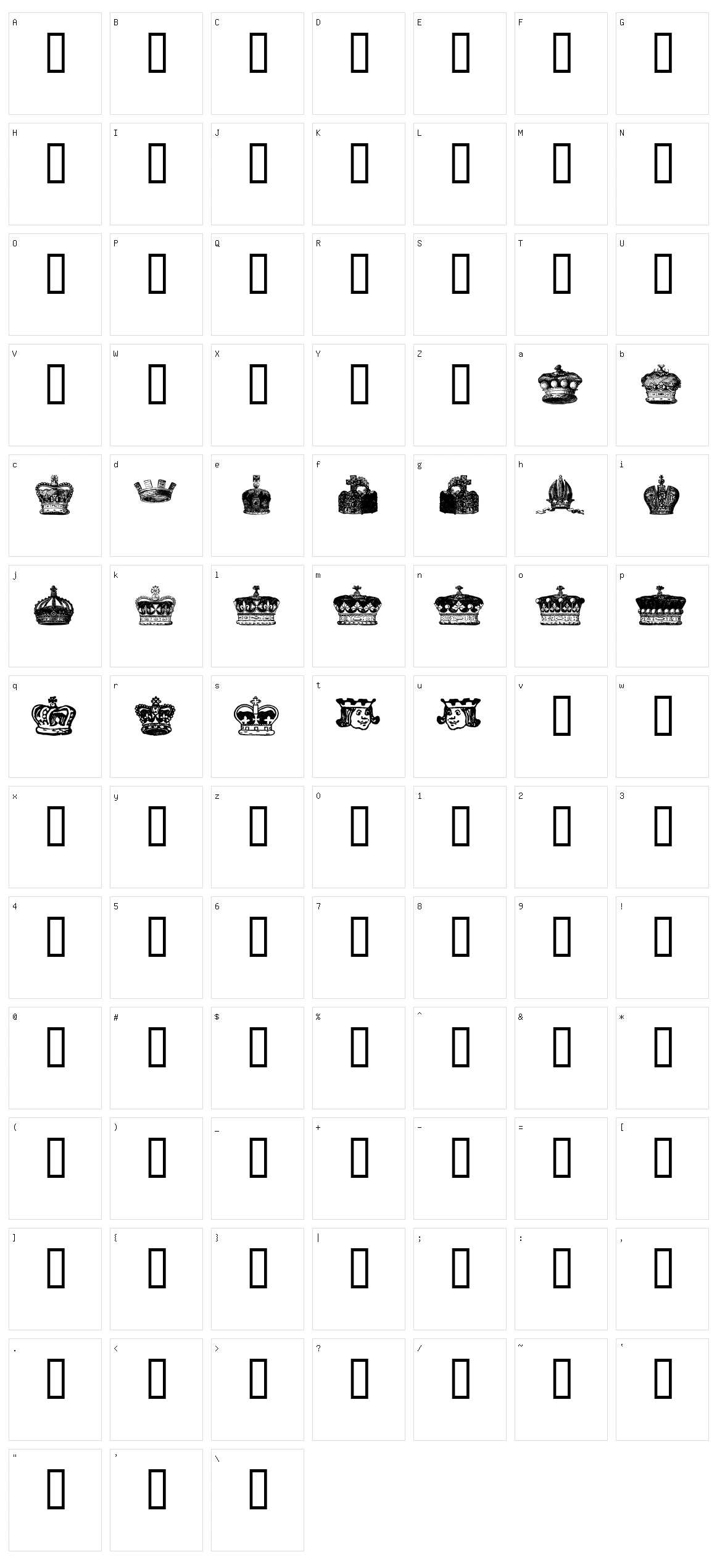
king's cross! what shall we do?
his purple robe is rent in two!
out of his crown he's torn the gems!
he's thrown his sceptre into the thames!
the court is shaking in its shoe-
king's cross! what shall we do?
(leave him alone for a minute or two.)
-eleanor farjeon (nursery rhymes of london town, 1916)
----
"crowns and coronets"
is a windows95 truetype font/macintosh clipart package
digitized from a collection of 19th century public domain woodcuts
in august of 1997
by steven j. lundeen,
emerald city fontwerks,
seattle, washington, usa.
---ESSENTIAL "crowns and coronets" INFORMATION---
crowns - made at first of grass, flowers, twigs of laurel, oak, olive,
etc., but later of gold, were awarded in ancient rome to the
victors in the public games, and to citizens who had done the
state some distinguished service.
also, an ornament or covering for the head worn as a symbol
of sovereignty.
crowns were of varied forms till heralds devised a regular
series to mark the grades of rank, from the imperial crown
to the baron's coronet.
coronets - crowns representing a dignity inferior to that of the
sovereign. the distinction between the coronets of different
ranks of nobility as it now exists throughout europe is of
very modern origin.
a - baron's coronet. baron - in england, a title or degree of nobility;
one who holds the rank of nobility between a viscount and
baronet, being the lowest grade of rank in the house of lords.
b - coronet of a duke. coronet - an inferior crown worn by noblemen.
the coronet of a british duke is adorned with strawberry leaves.
c - crown - a wreath or garland, or any ornament encircling the head,
especially as a badge of dignity or power; hence, any mark of
honorable distinction.
"an olive-branch and laurel-crown." -shakespeare
"hid'st thou that forehead with a golden crown!" - shakespeare
"what seemed his head the likeness of a kingly crown had on."
-milton
"let merit crowns and justice laurels give." - dryden
d - mural crown (roman antiquity) - a golden crown, or circle of gold,
indented so as to resemble a battlement, bestowed on him who
first mounted the wall of a beseiged place, and there lodged
a standard.
e - victorian crown of england - the crown of england is a gold circle,
adorned with pearls and precious stones, from which rise
alternately four maltese crosses and four fleurs-de-lis.
from the tops of the crosses spring imperial arches, closing
under a mound and a cross. within the crown is a crimson velvet
cap with an ermine border.
f - imperial crown (charlemagne's) - the crown of charlemagne, which
is preserved in the imperial treasury of vienna, is composed
of eight plates of gold, four large and four small, connected
by hinges. the large plates are studded with precious stones,
the front one being surmounted with a cross; the smaller ones,
placed alternately with these, are ornamented with enamels
representing solomon, david, hezekiah, and isaiah, and christ
seated between two flaming seraphim.
g - imperial crown (charlemagne's)
h - austrian crown - the austrian crown is a sort of cleft tiara,
having in the middle a semicircle of gold supporting a mound
and cross; the tiara rests on a circle with pendants like
those of a miter.
i - russian crown - the russian crown is a modified form of the same
imperial crown (austrian).
j - french crown - the royal crown of france is a circle ornamented
with eight fleurs-fe-lis, from which rise as many quarter-
circles closing under a double fleurs-de-lis.
k - coronet of the prince of wales - composed of a circle or fillet
of gold, on the edge four crosses patteé alternating with
as many fleurs-de-lis, and from the two side crosses an arch
surmounted with a mound and cross.
l - coronet of younger princes and princesses.
m - coronet of a duke - is adorned with strawberry-leaves.
n - coronet of a marquis - has leaves with pearls (silver balls)
interposed.
o - coronet of an earl - has the pearls raised above the leaves.
p - coronet of a viscount - is surrounded with pearls only.
q - crown, children's woodcut.
r - crown, children's woodcut.
s - crown, children's woodcut.
t - woodcut "jack", wearing crown.
u - woodcut "jack", wearing crown.